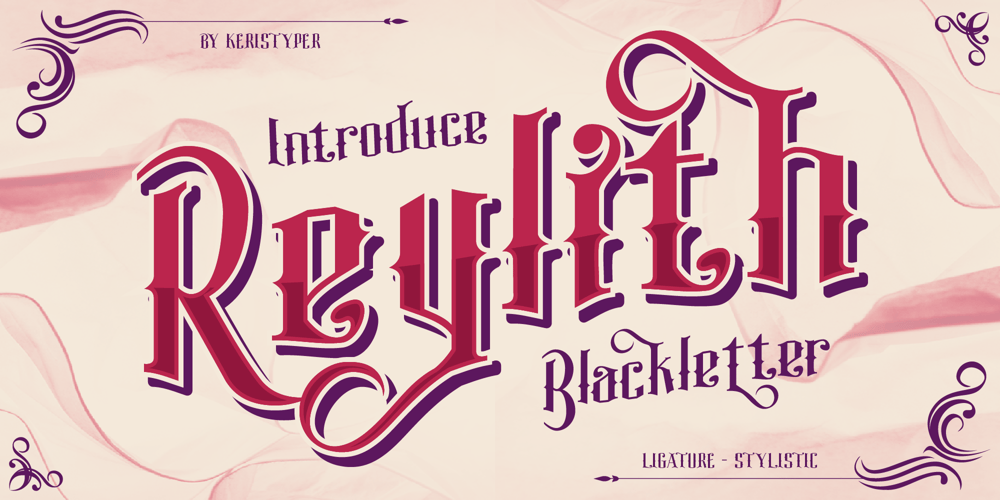
Reylith Font Family was designed by Tezar Tantular and published by Keristyper Studio. Reylith contains 1 styles and family package options. introduce Reylith fonts, a typeface inspired by tattoo letters. This font is good for logo design, Social media, Movie Titles, Books Titles, short text even long text letters, and good for your secondary text font with sans or serif.**Featured:*** Standard Uppercase & Lowercase* Numeral & Punctuation* Multilingual : ä ö ü Ä Ö Ü ß ¿ ¡* Alternate & Ligature* PUA encodedWe recommend programs that support the OpenType feature and the Glyphs panel such as Adobe applications or Corel Draw. so you can use all the variations of the glyphs.Hope you enjoy our fonts!